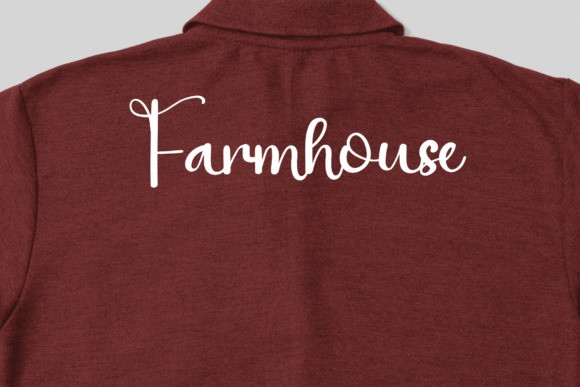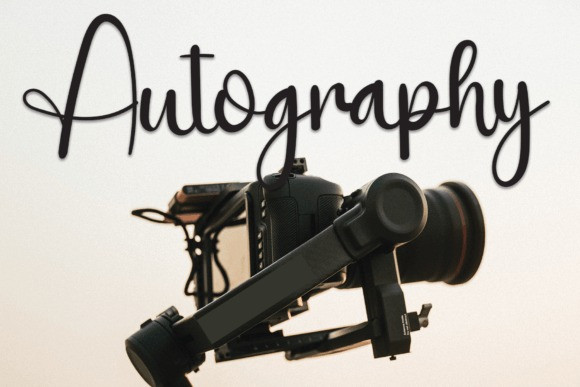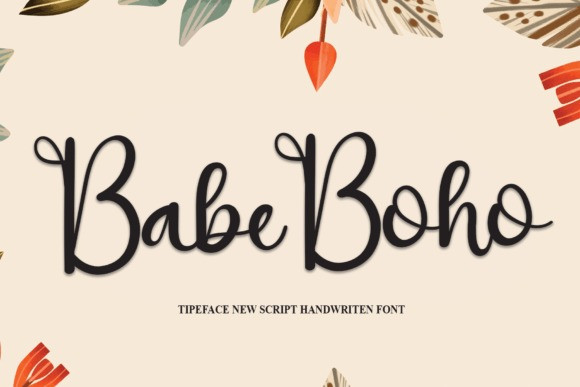
Babe Boho Font
Babe Boho Font is a simple and friendly handwritten font. Whether you’re using it for crafts, digital design, presentations, or creating greeting cards, this font has the potential to become your go-to font, whatever the occasion.